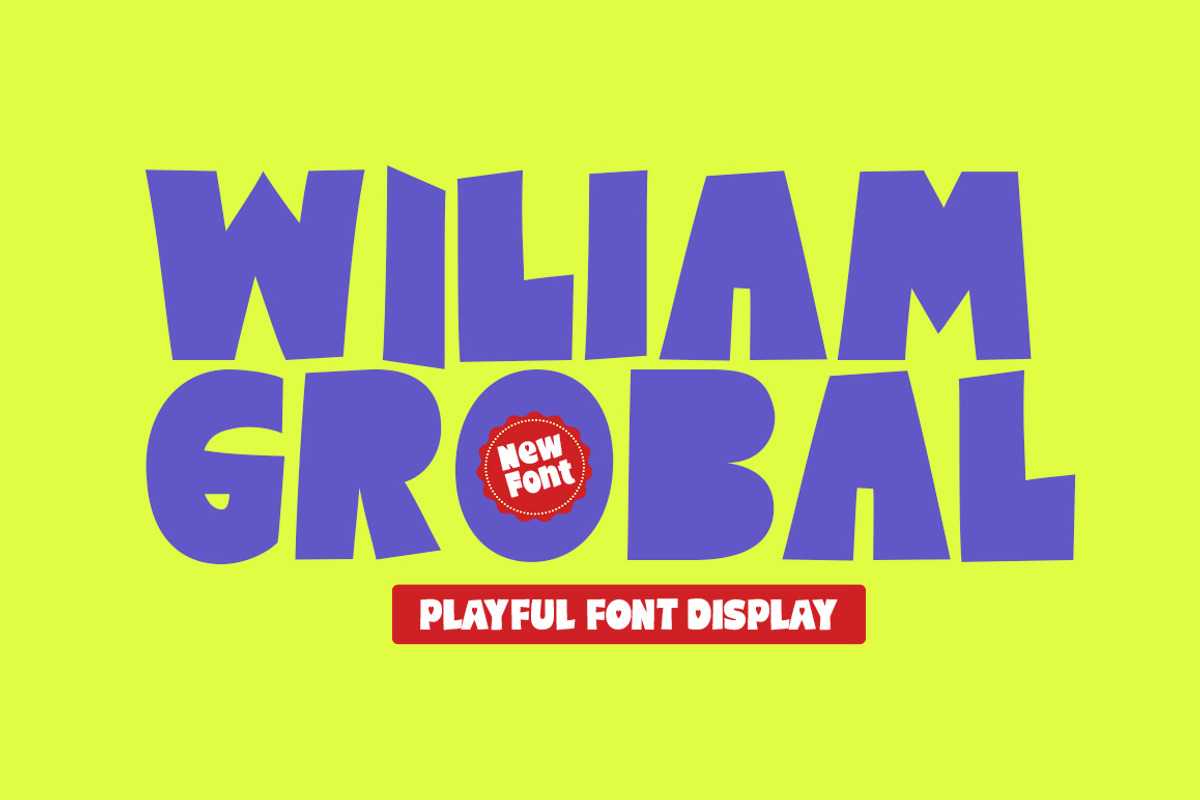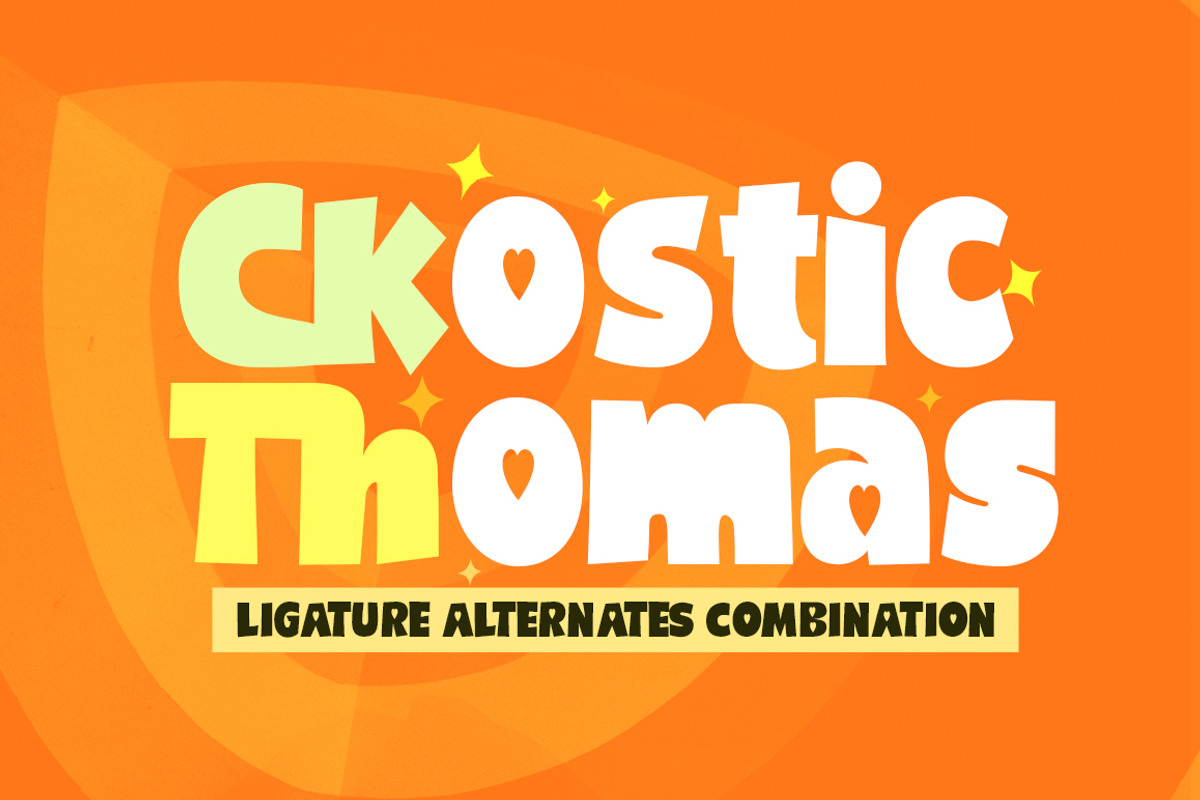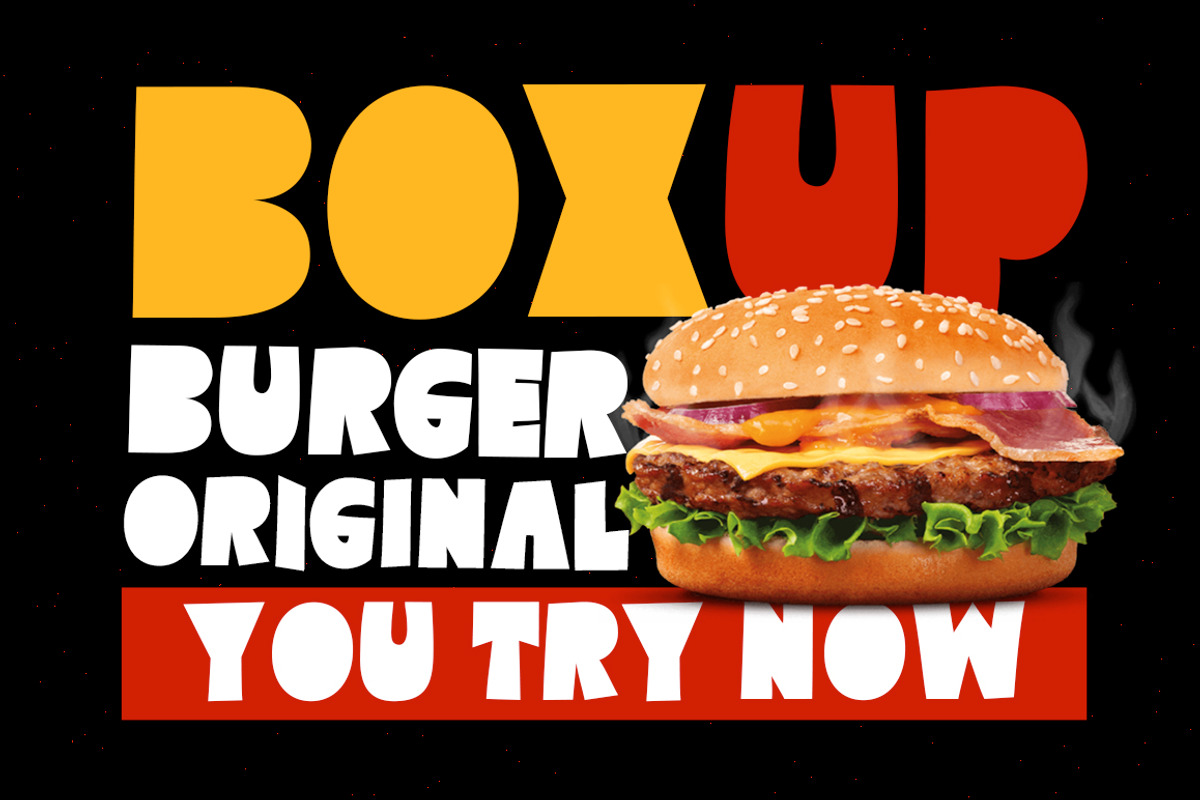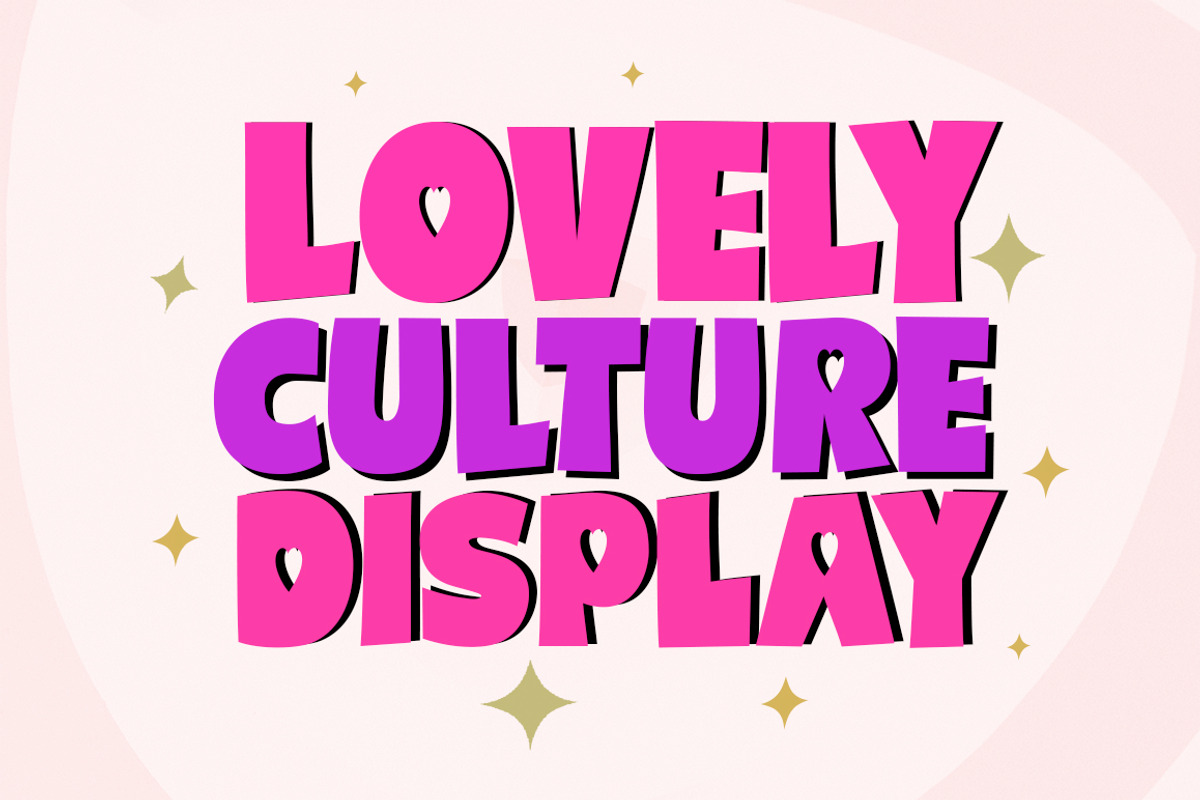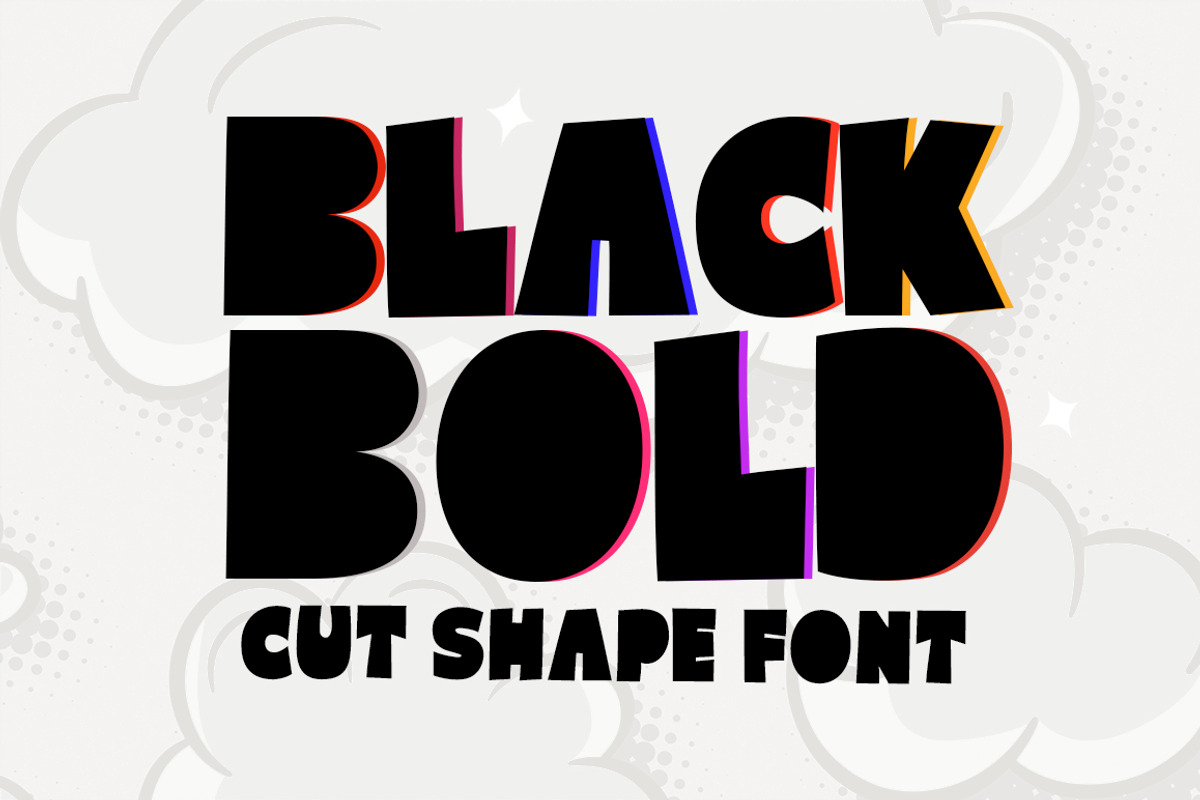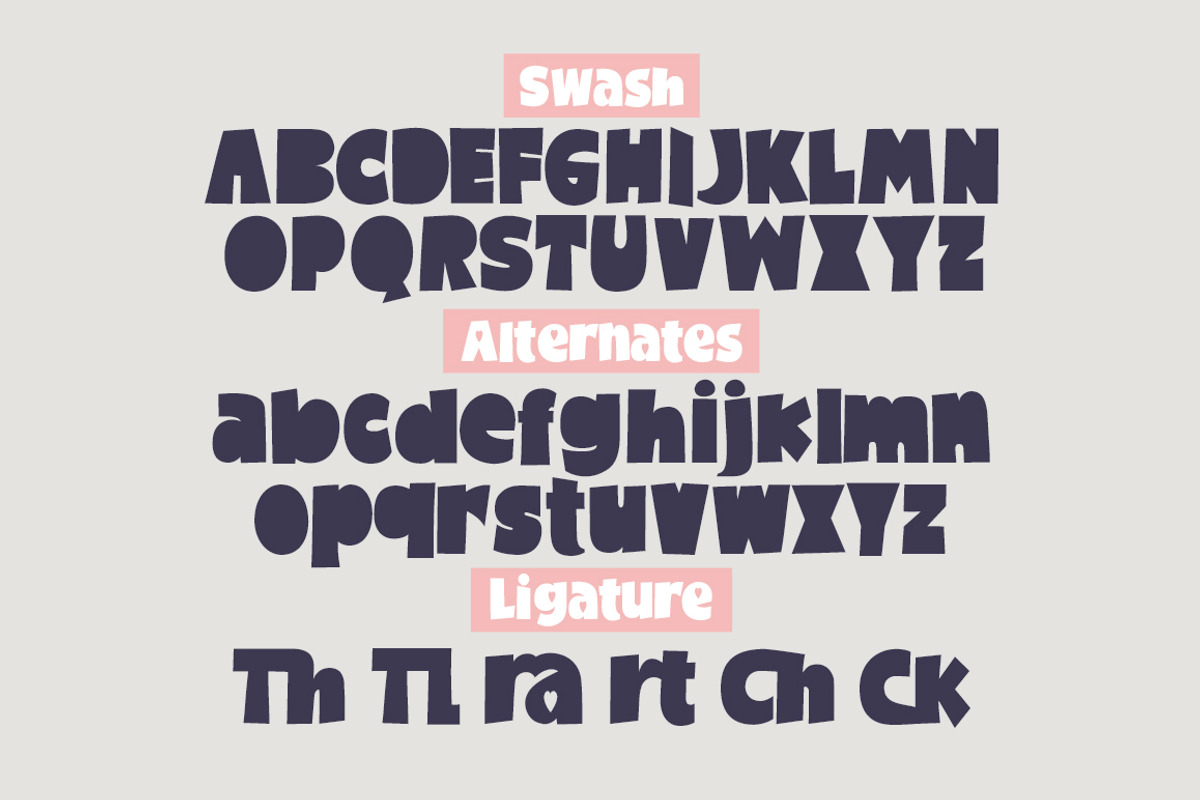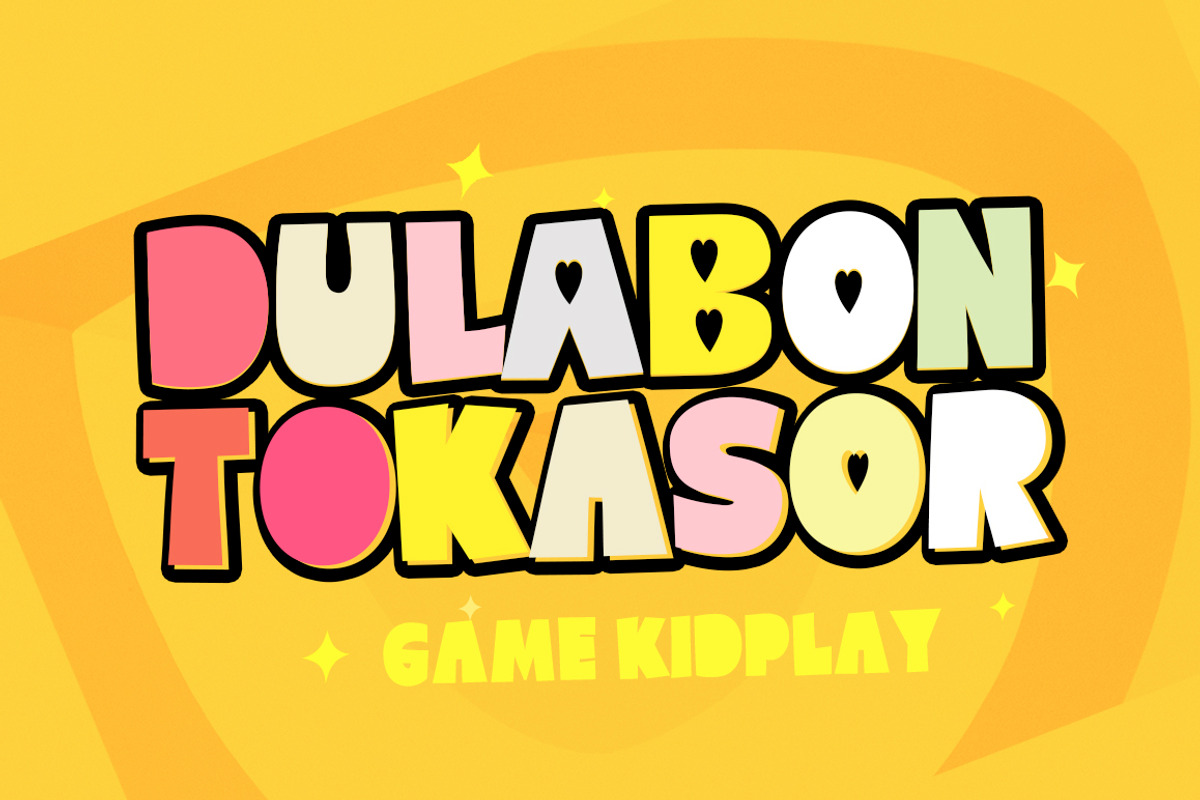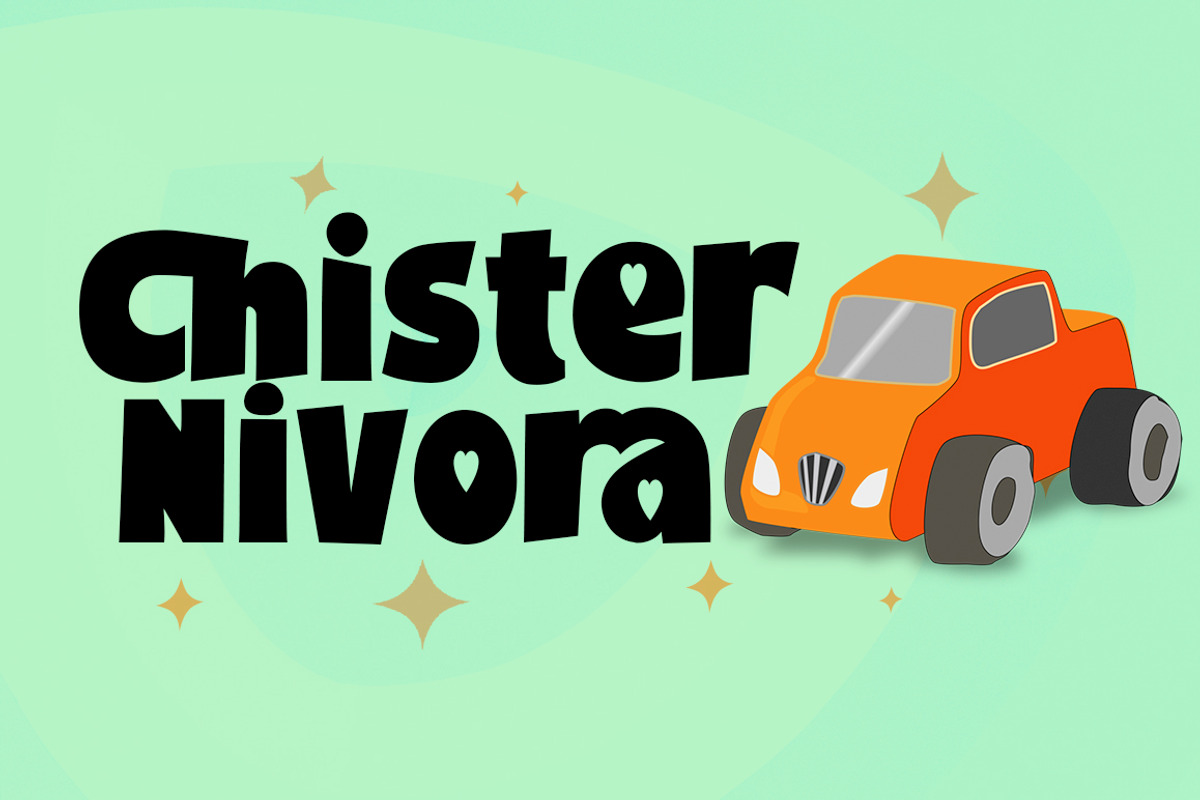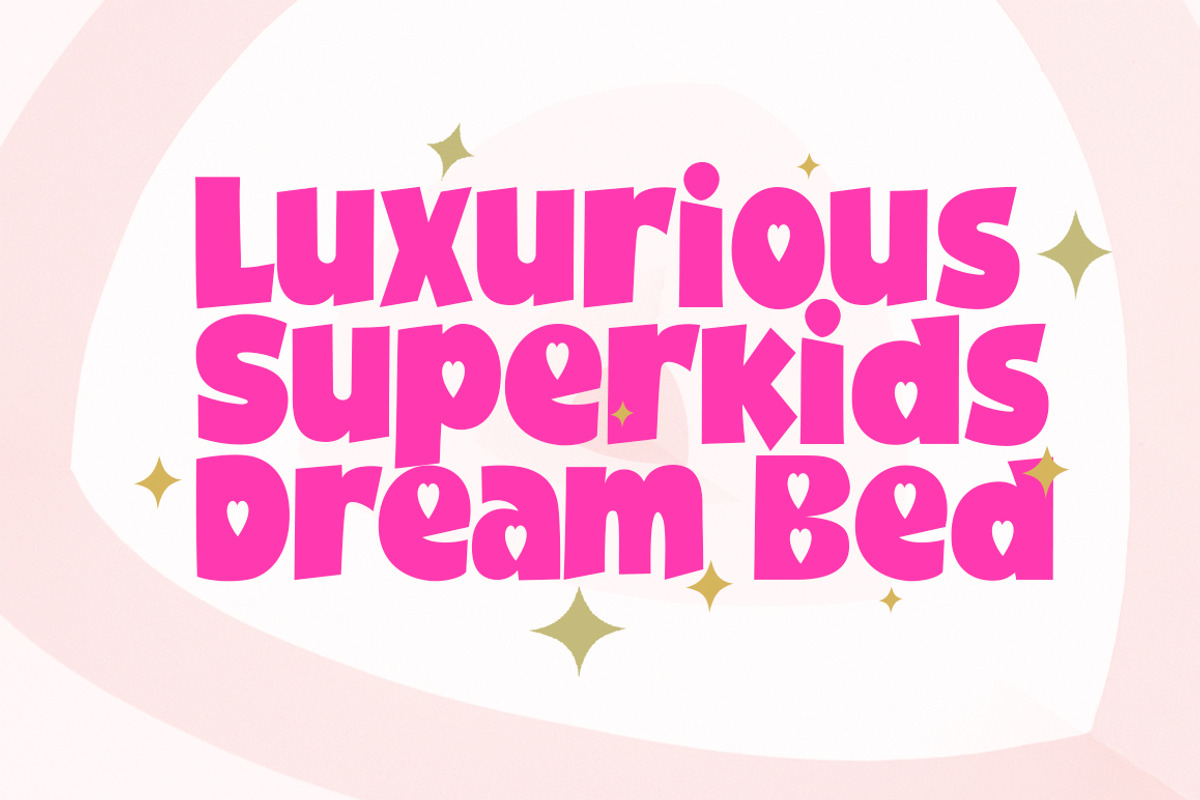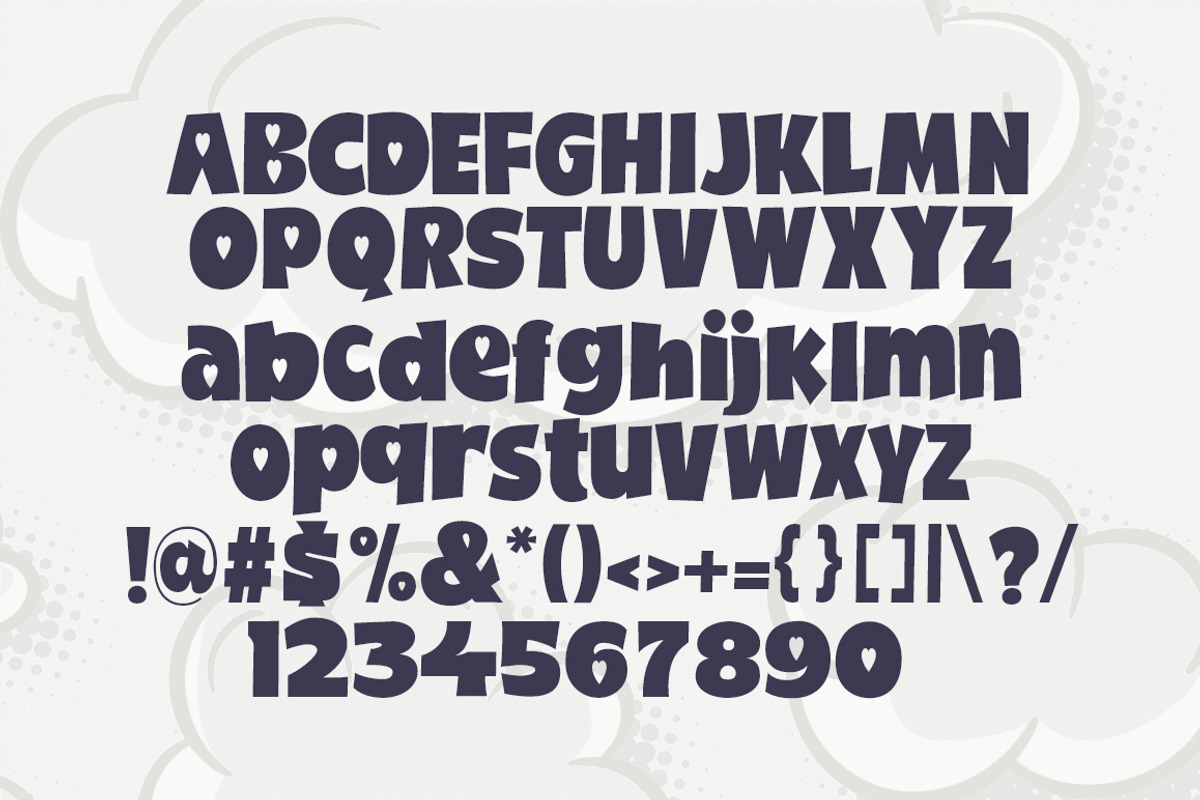
Wiliam Grobal
The latest Wiliam Grobal, our new and fun font collection. It combines modern, fun, and formal together. It contains so many alternatives and binders that you can use them to have more fun in your projects. is ideal for branding or packaging projects that require a unique and fun feel.